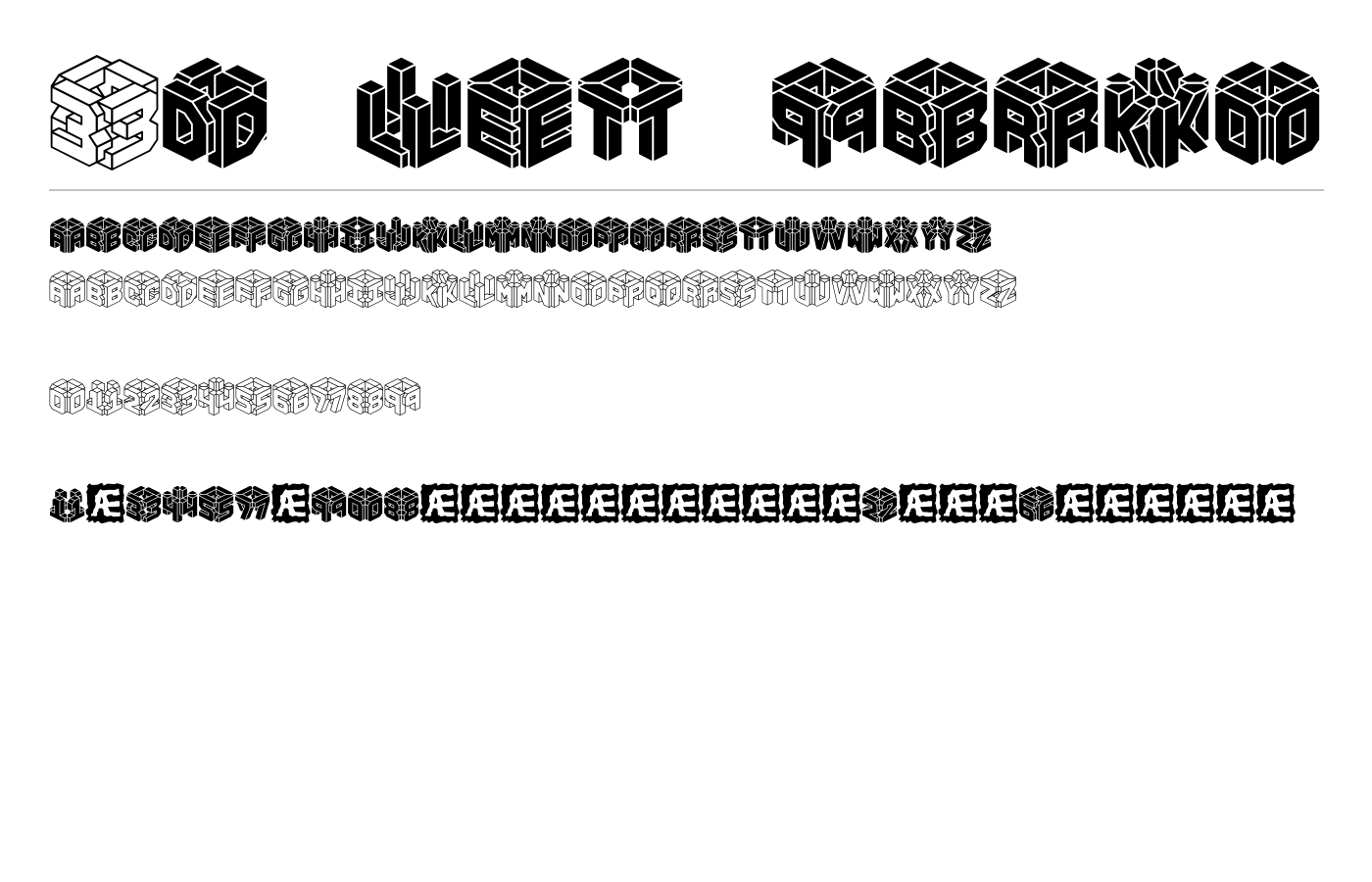
3D LET (BRK) is a bold, geometric display font with a striking three-dimensional block style that gives each character a strong and impactful presence. Its heavy weight, sharp edges, and isometric perspective make it ideal for attention-grabbing headlines, logos, and playful designs where a retro or futuristic vibe is desired. This font works best in large sizes and creative branding where a unique, eye-catching look is key.
3D LET (BRK) Font